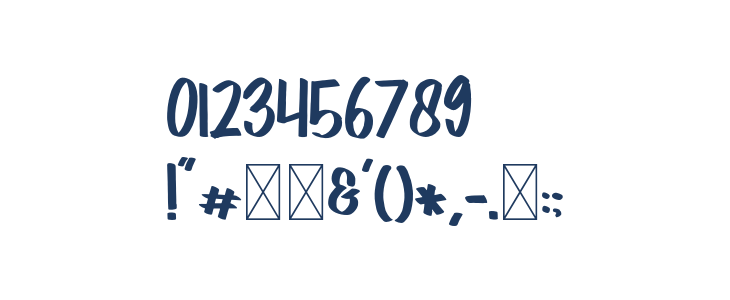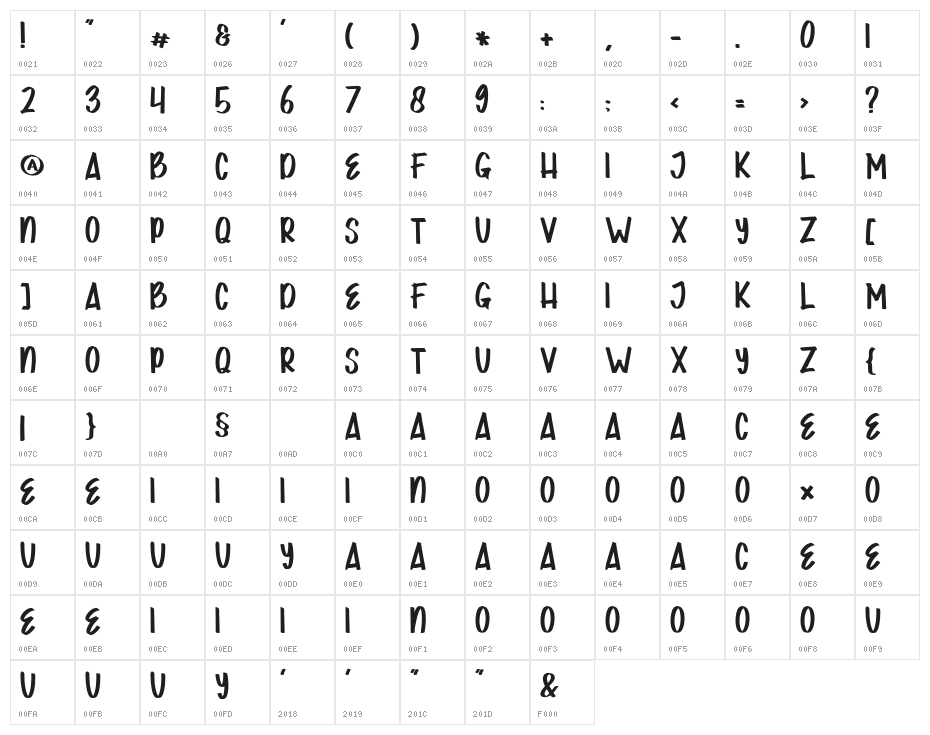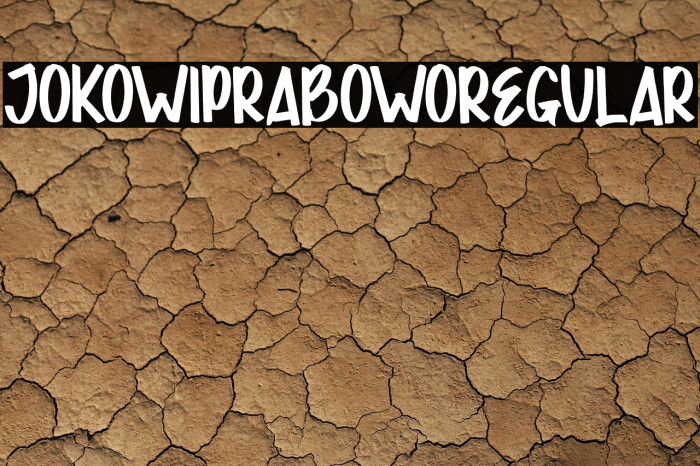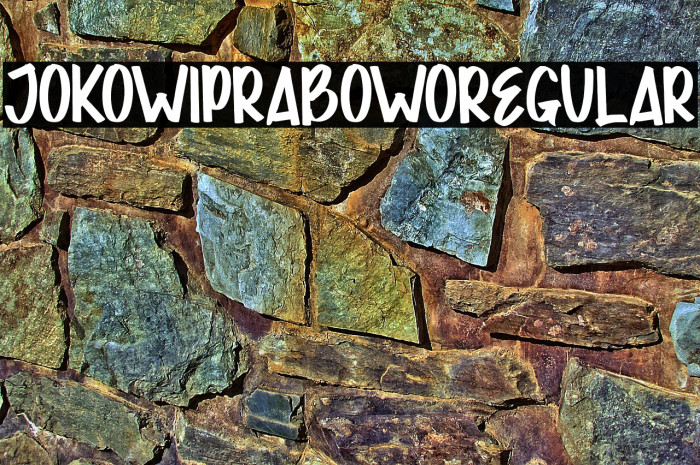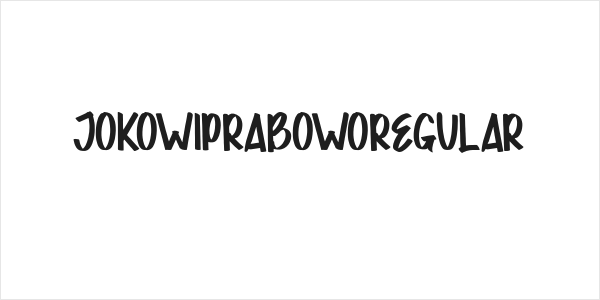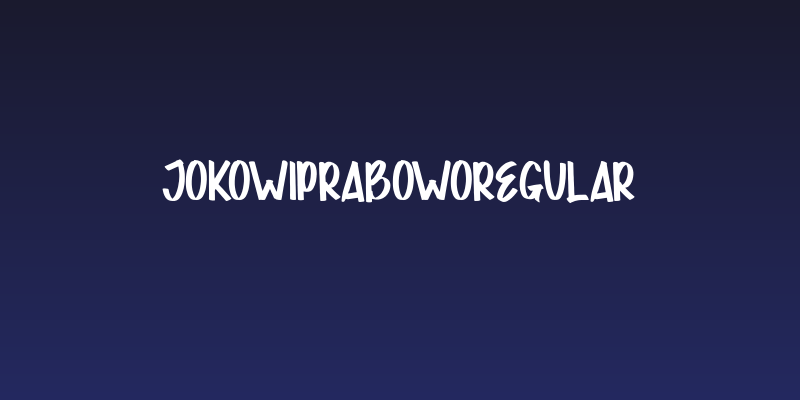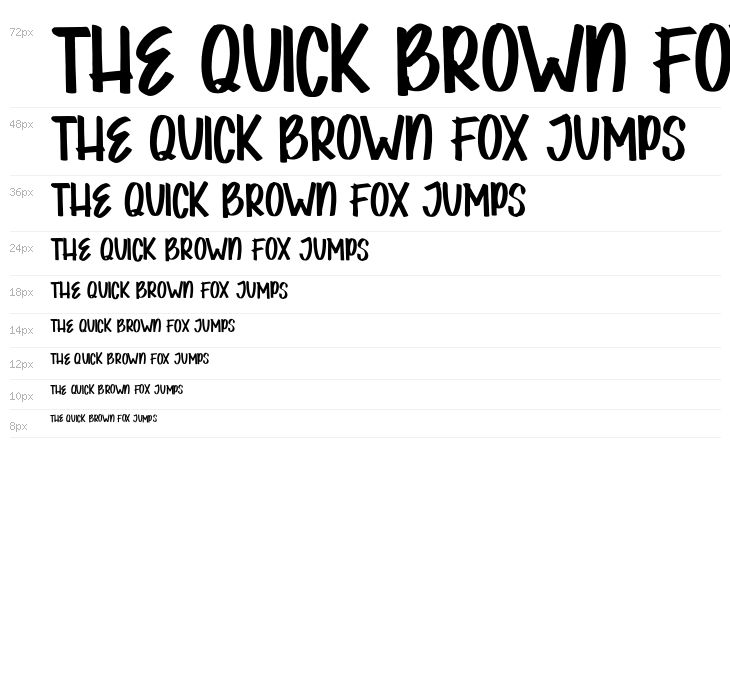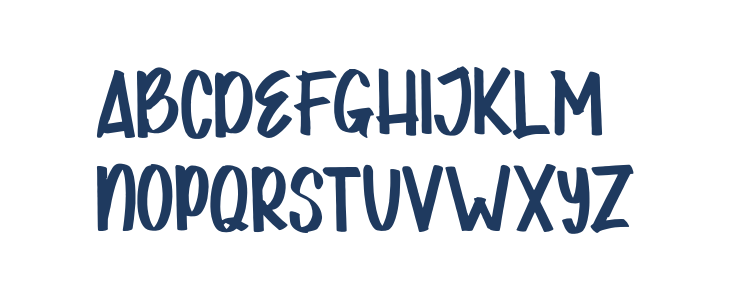
JOKOWIPRABOWORegular Font
JOKOWIPRABOWORegular Description
This font features a bold and dynamic handwritten style, characterized by its thick strokes and playful curves. The uppercase and lowercase letters maintain a consistent flow, giving it a cohesive look. The numbers and special characters are designed with the same boldness, ensuring uniformity across all glyphs. The font exudes a casual yet confident vibe, making it suitable for a variety of creative projects. Its bold presence makes it stand out, while the handwritten style adds a personal touch. The character spacing is slightly tight, which enhances its compact and impactful appearance.
| Proposed Projects | Ideal for branding, posters, social media graphics, and creative projects that require a personal touch. |